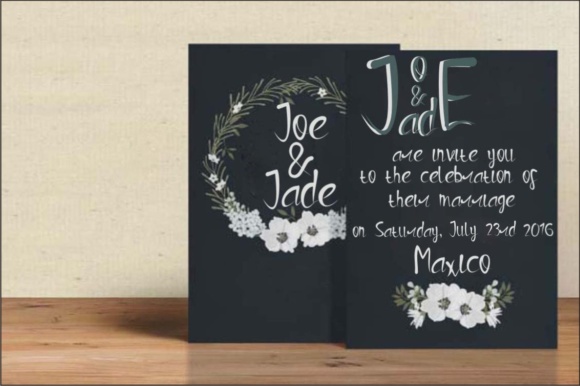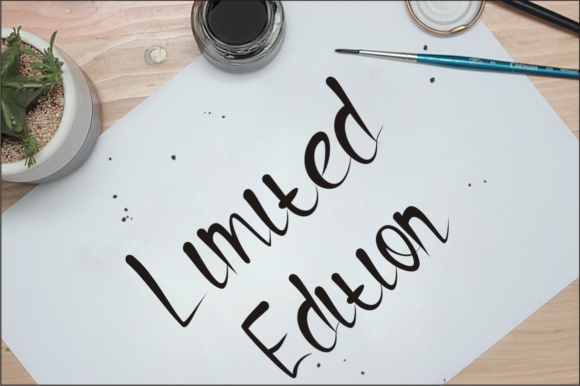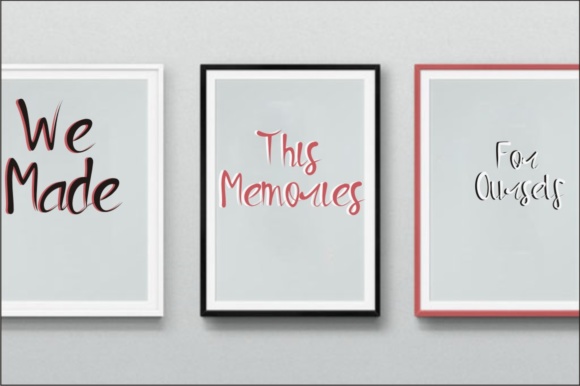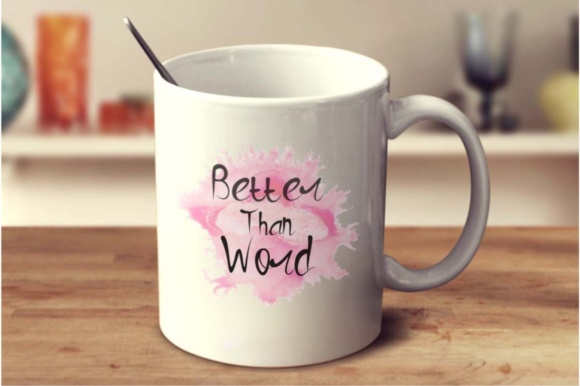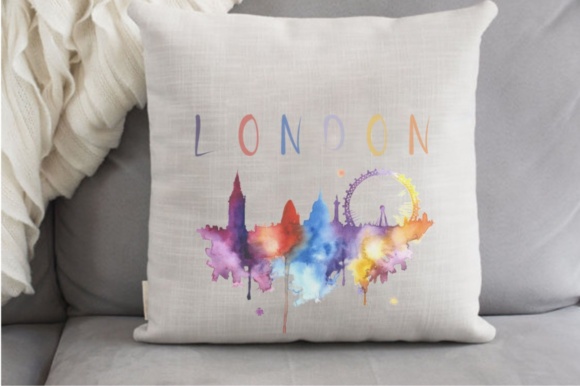
Photograph Font
About Photograph Font
Photograph Script is a handwritten stylish calligraphy font with a classic and elegant touch. This font is a great way to add some sophistication to your designs.